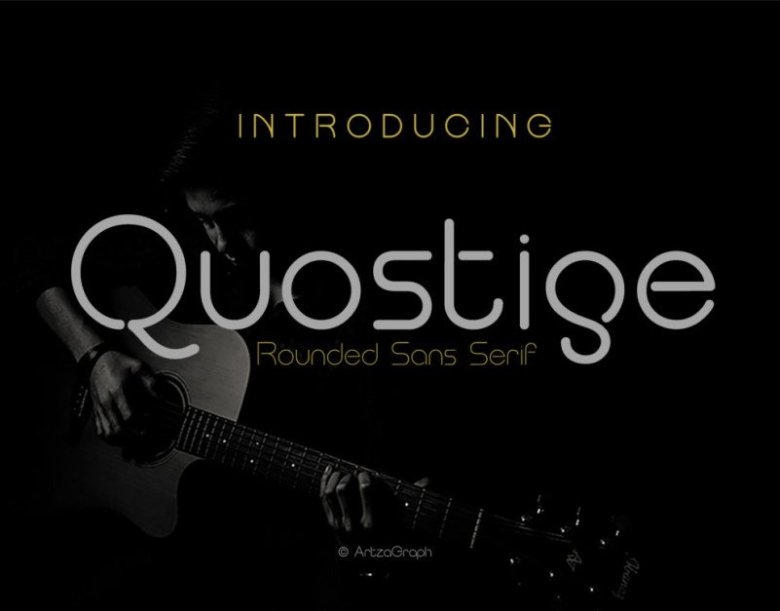
Quostige Sans Serif Font
This is an elegant sans serif typeface with smooth rounded edge style, Fashionable, Classy but still Modern! Proudly presents latest product Quostige Font! It is designed and shared by Artza Graph. Quostige Sans Serif is a rounded typeface inspired by shape harmony with smooth curves and circular forms. It has a simple, soft structure and rounded edges. Its clean lines, smooth forms, unique shape, and proportions give the face a dynamic, like harmony. Also, lend a bold and modern feel It is a monoline typeface with character/glyphs that includes: alphabet, Numeral, Multilingual support